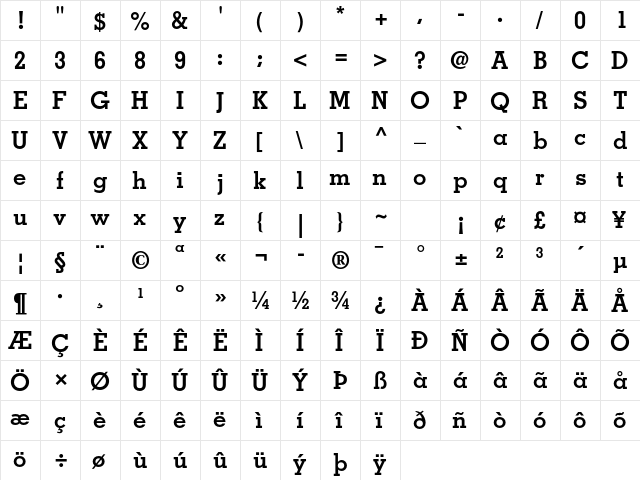
Memphis LT Std Bold
| Designer | Dr. Rudolf Wolf |
Design Context for Memphis LT Std Typeface
Memphis LT Std takes a measured approach to typography — its balanced proportions and neutral character make it a reliable workhorse for both digital and print work. The heavy weight commands attention and anchors typographic hierarchies.
Pro Tip: Use Memphis LT Std in both headline and body roles to test its range before committing to a single application.